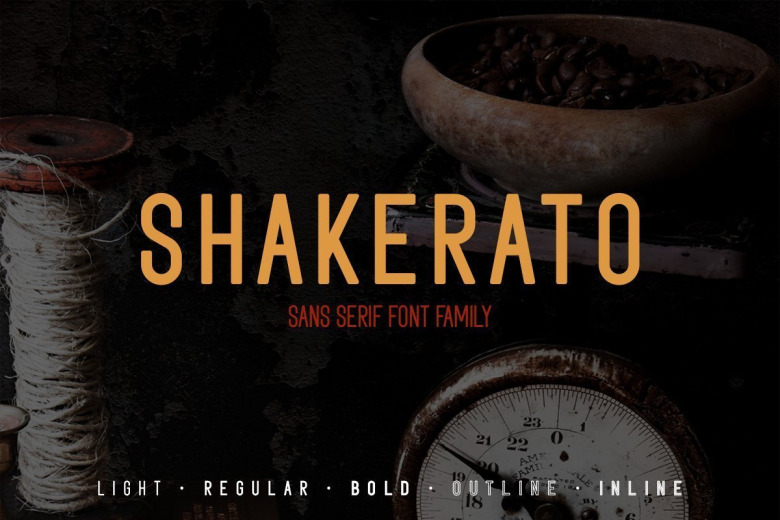
Shakerato Font Family
Shakerato Sans Font Family is a modern sans serif font , minimalist condensed font with a neutral design and subtle decorative elements. Shakerato features sans serif characters, perfectly balanced in terms of spacing to be functional and readable in small or large sizes. Its condensed proportions are designed to be efficient, space-saving but at the same time, clean and legible as titles and also as body text.
With a smart, confident and simple appearance, Shakerato it will be useful for many applications. From layouts, branding, web design, editorials to apps, this font will help you to create friendly but professional looking designs. This font is free for PERSONAL USE. Link to purchase full version and commercial license : HERE